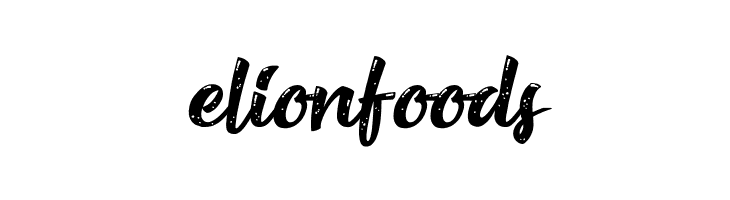
A bold, brush-style cursive font with a lively and artistic flair.
A playful set of hand-drawn decorative elements with a whimsical, brush-like texture.
A bold, geometric font with a futuristic and segmented design.
A bold, geometric font with rounded, overlapping shapes for a modern, artistic look.
A bold, geometric font with a modern and artistic style.
A playful handwritten font with a casual and friendly style.
A decorative script font with a vintage, hand-drawn style and distressed texture.
A thin, elegant handwritten script with tall, airy letterforms.
A playful, quirky handwritten font with irregular, charming letterforms.